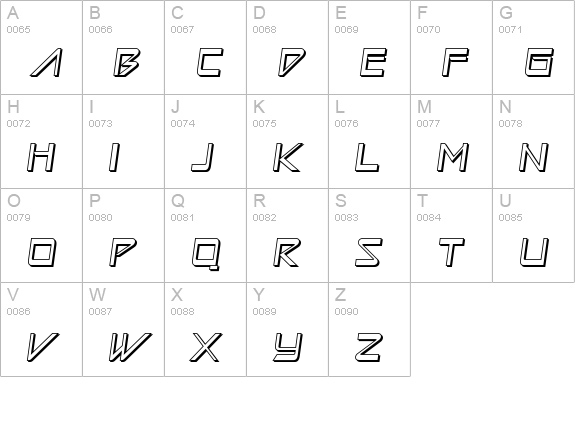
Astron Boy Wonder font is a captivating and futuristic typeface that will bring a sense of wonder and innovation to your design projects. With its sleek lines and modern aesthetic, this font is perfect for adding a touch of sci-fi flair to any creative endeavor. What sets Astron Boy Wonder font apart is not only its striking design, but also the fact that it is available for free download at FontsMarket.com. That's right - you can add this unique font to your collection without any cost, making it a valuable addition to any designer's toolkit. Whether you're working on a poster, website, logo, or any other design project, Astron Boy Wonder font will help you stand out and make a bold statement. Embrace the future of typography with this stunning and versatile font, freely accessible for your creative endeavors.